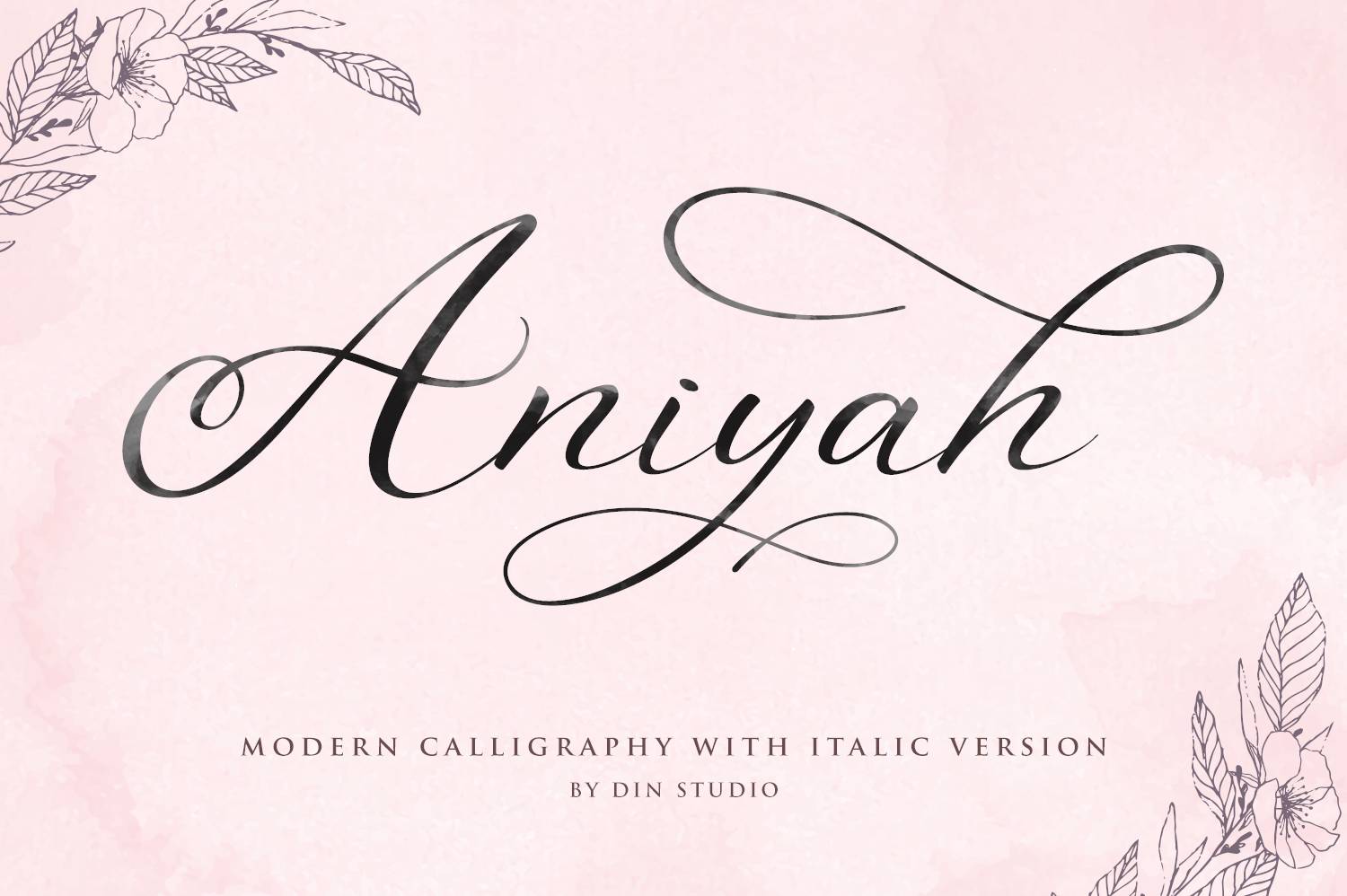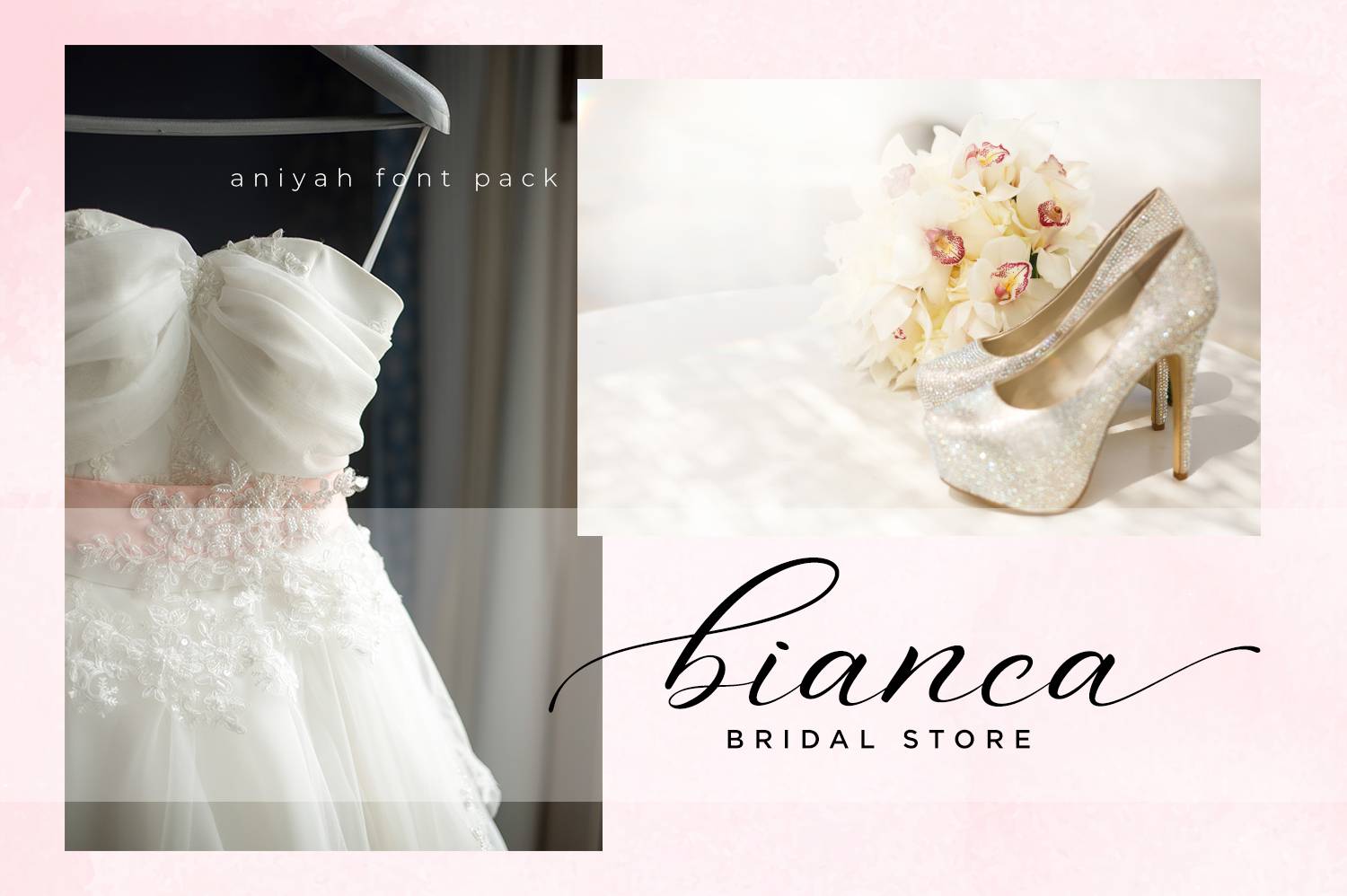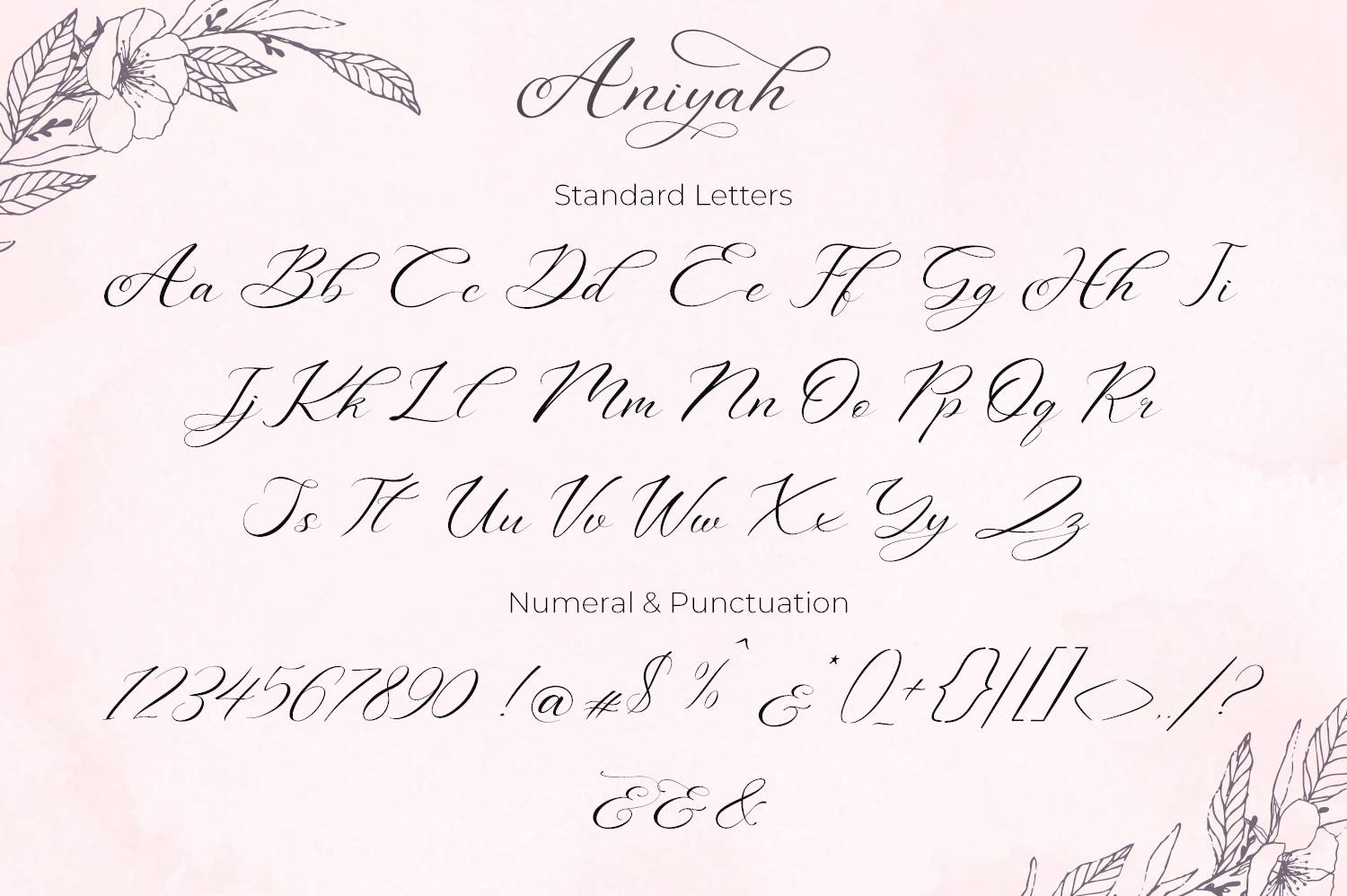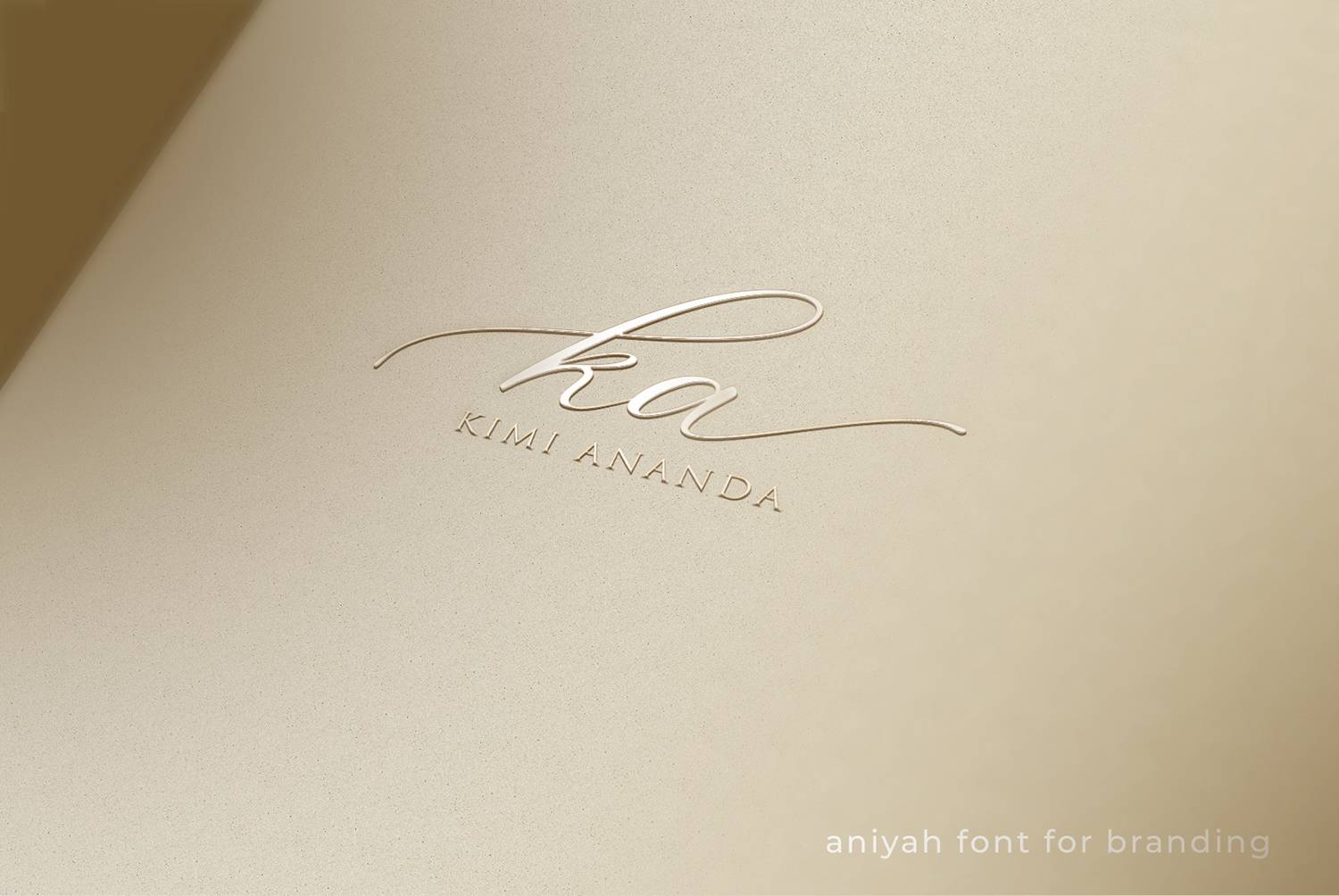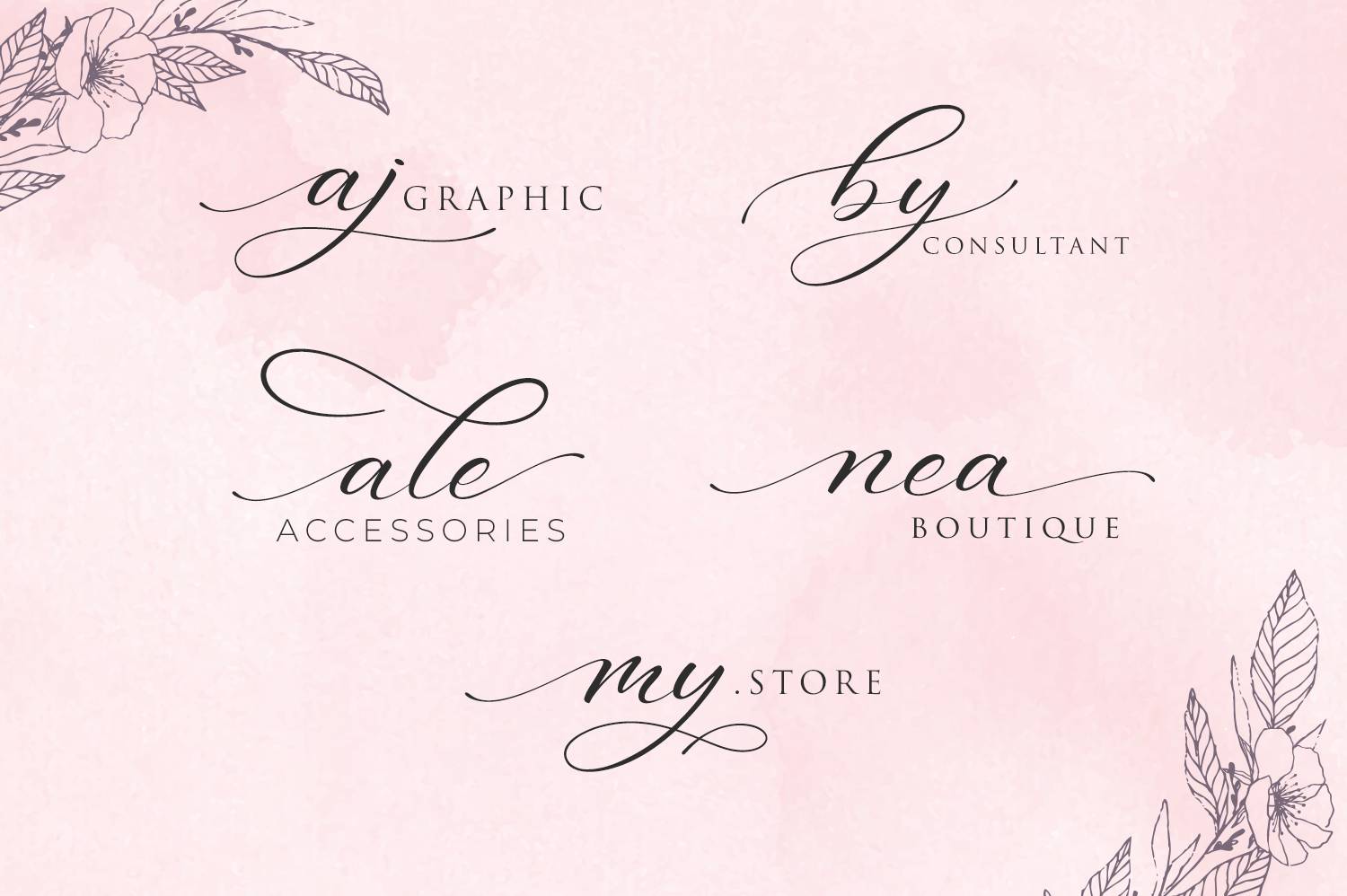
Aniyah is an elegant script font characterized by its flowing, delicate strokes and graceful letterforms that evoke a sense of sophistication and romance. Its fine lines and smooth curves make it perfect for wedding invitations, luxury branding, and upscale editorial projects where a touch of refined beauty is desired. This font shines in headlines or decorative text, adding a timeless, stylish flair to any design.
Aniyah Font
About Aniyah Font